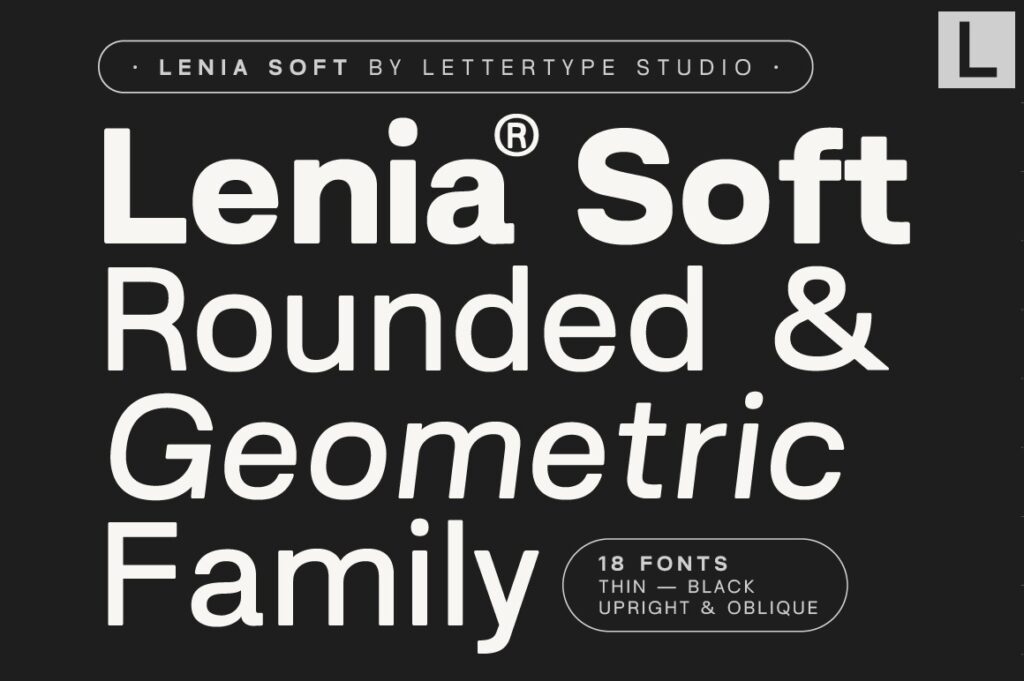
Lenia Soft Font Family
GEOMETRIC FONTS, SANS SERIF FONTSLenia Soft Font Family is a premium-quality font developed to enhance your work with a polished, modern, and visually elevated look. Lenia Soft was created as the softer evolution of Lenia Sans, preserving its geometric foundation while introducing rounded terminals that create a warmer, more inviting visual experience.